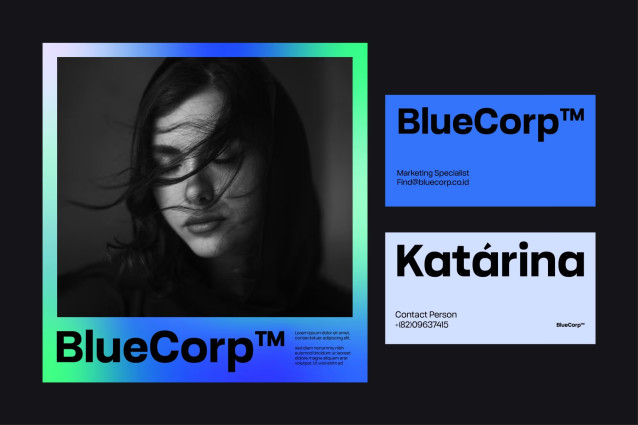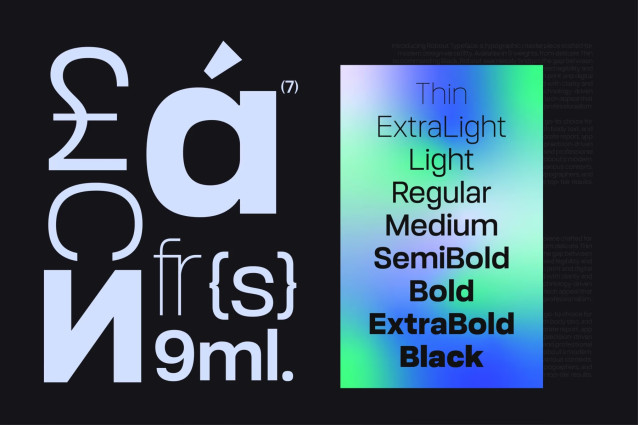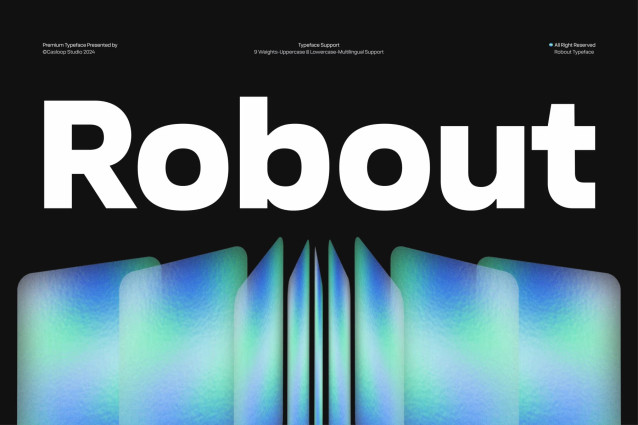
Robout – Rigit Sans 9 Fonts
Introducing Robout is a marquee-worthy modern sans-serif typeface designed for contemporary branding, editorial design, and digital interfaces. With clean, geometric letterforms and a focus on clarity and precision, Robout exudes professionalism and sophistication. Inspired by geometric grotesk styles, Robout seamlessly balances functionality with contemporary flair. Here are the key features and highlights of the typeface:
Features of Robout Typeface
Wide Range of Weights: Robout includes nine weights, from Thin to Black, ensuring flexibility for any project, whether you’re creating elegant headings or clear body text. Variable Font Option: The variable font format allows seamless adjustment of weight and width, giving designers precise control over typography in responsive designs.
Legibility Across Contexts: Its clean letterforms and optimal spacing make it ideal for both print and digital environments, from corporate branding to app interfaces. Innovative Design Details: With alternate glyphs and ligature options, Robout offers creative flexibility for unique typographic expressions. High-Tech Aesthetic: The typeface reflects a futuristic and tech-driven appeal, making it a perfect fit for startups, technology firms, and modern corporate projects.